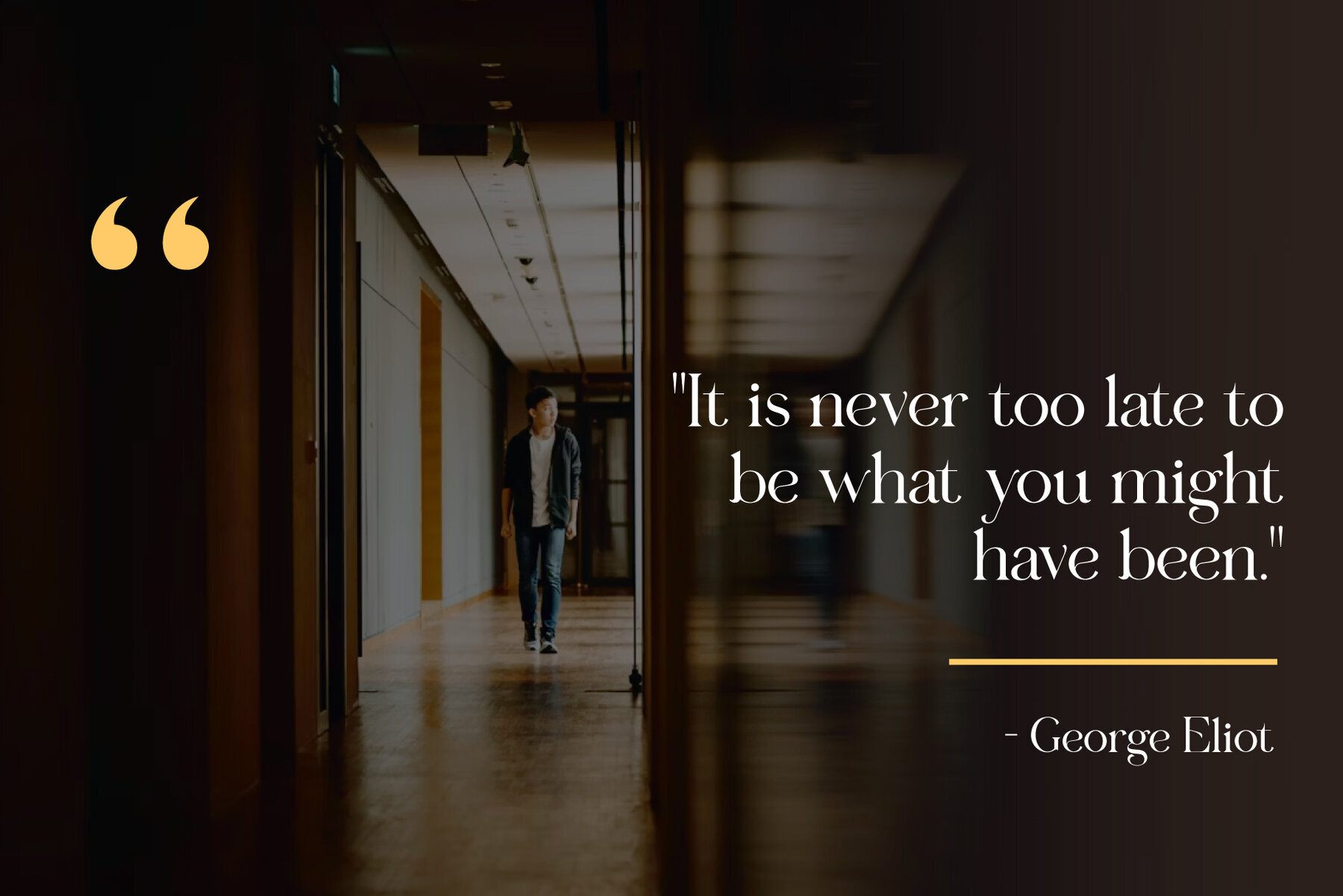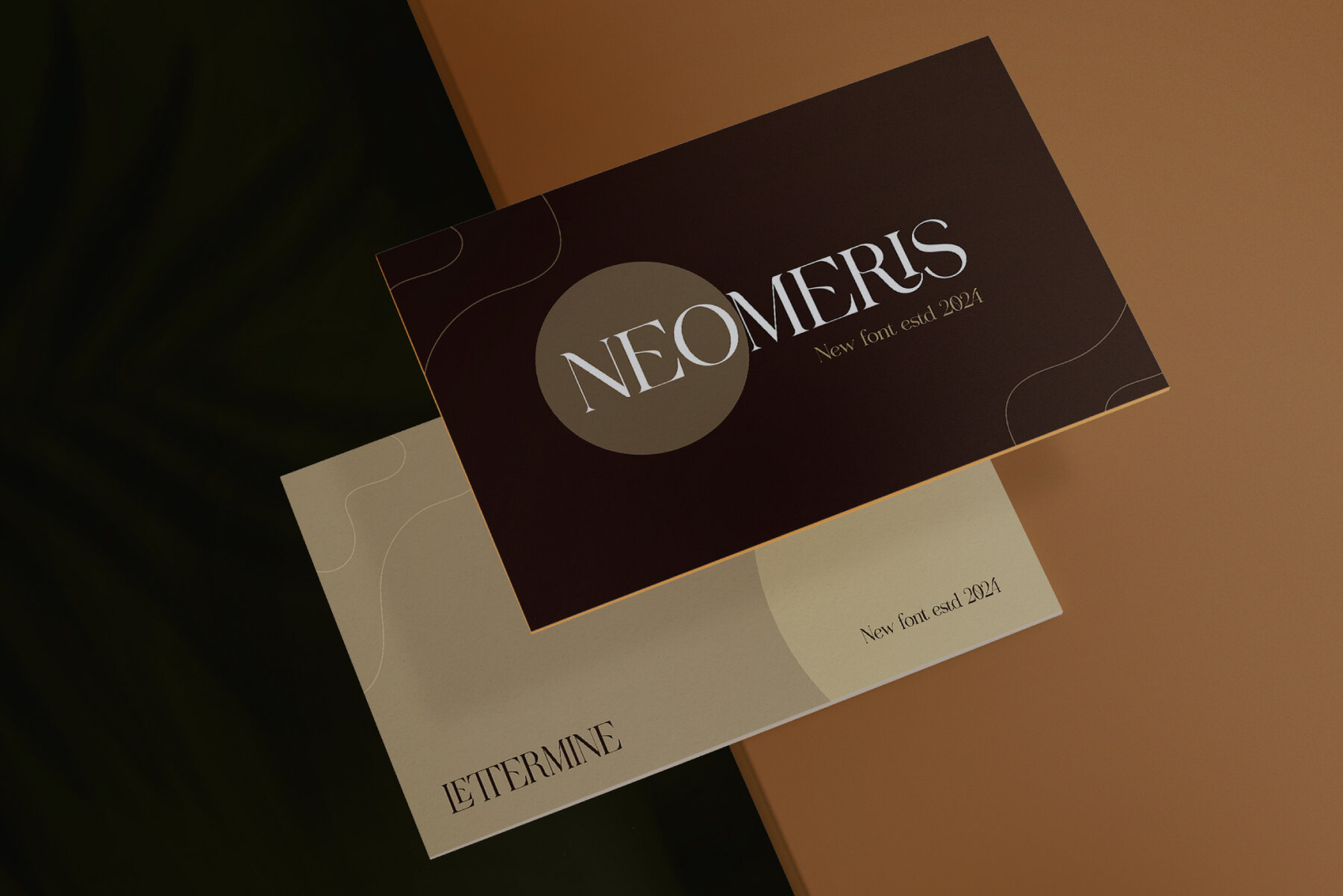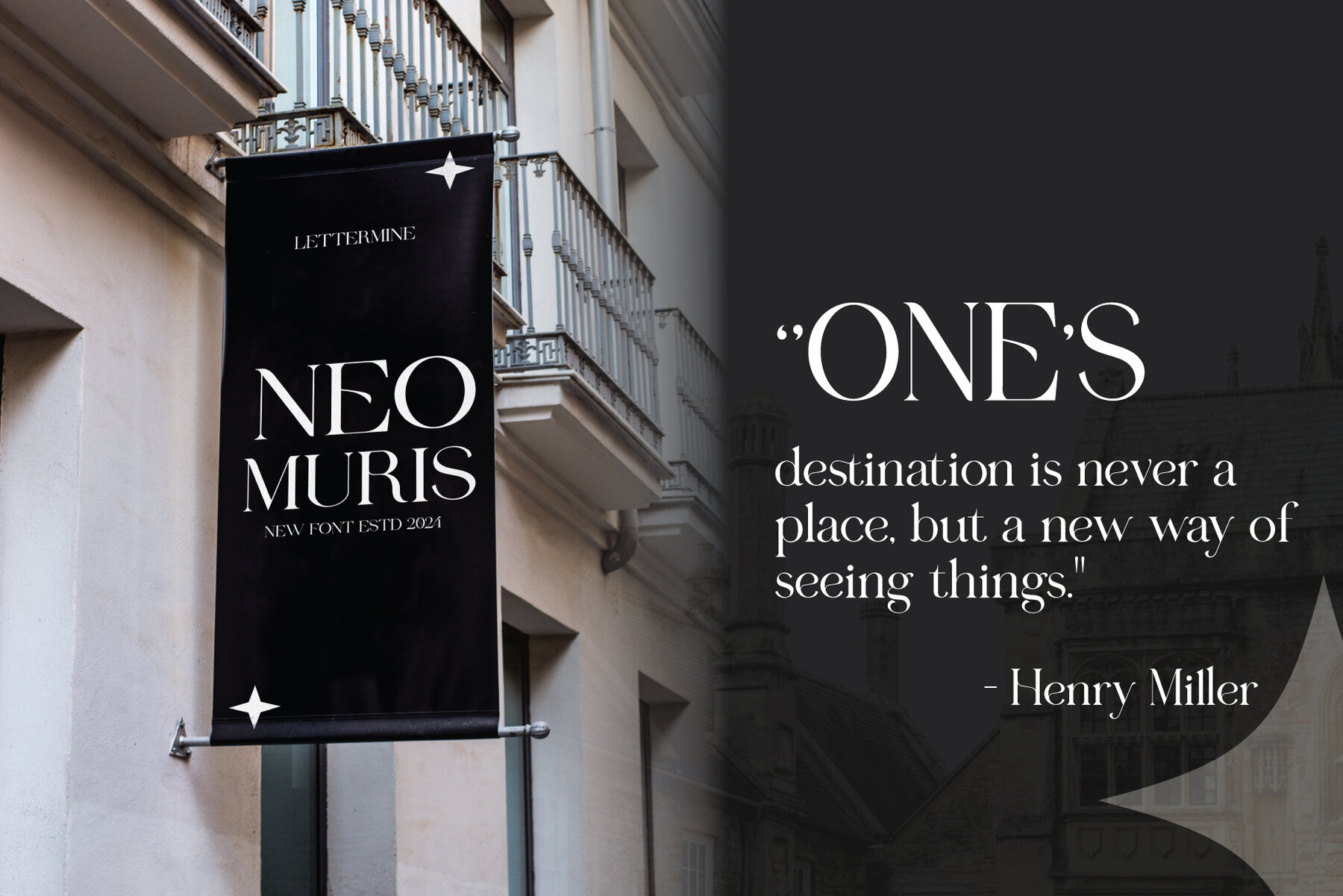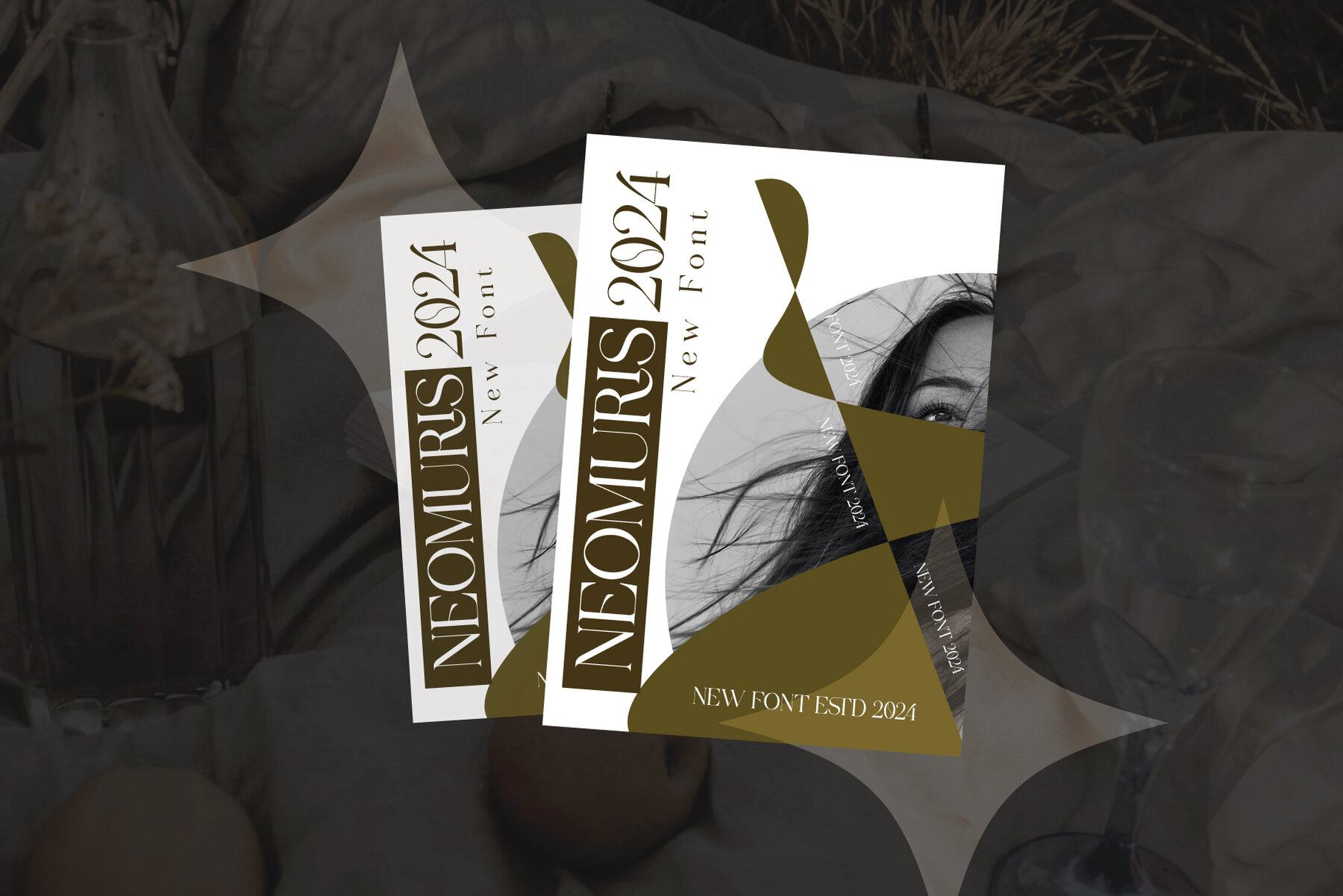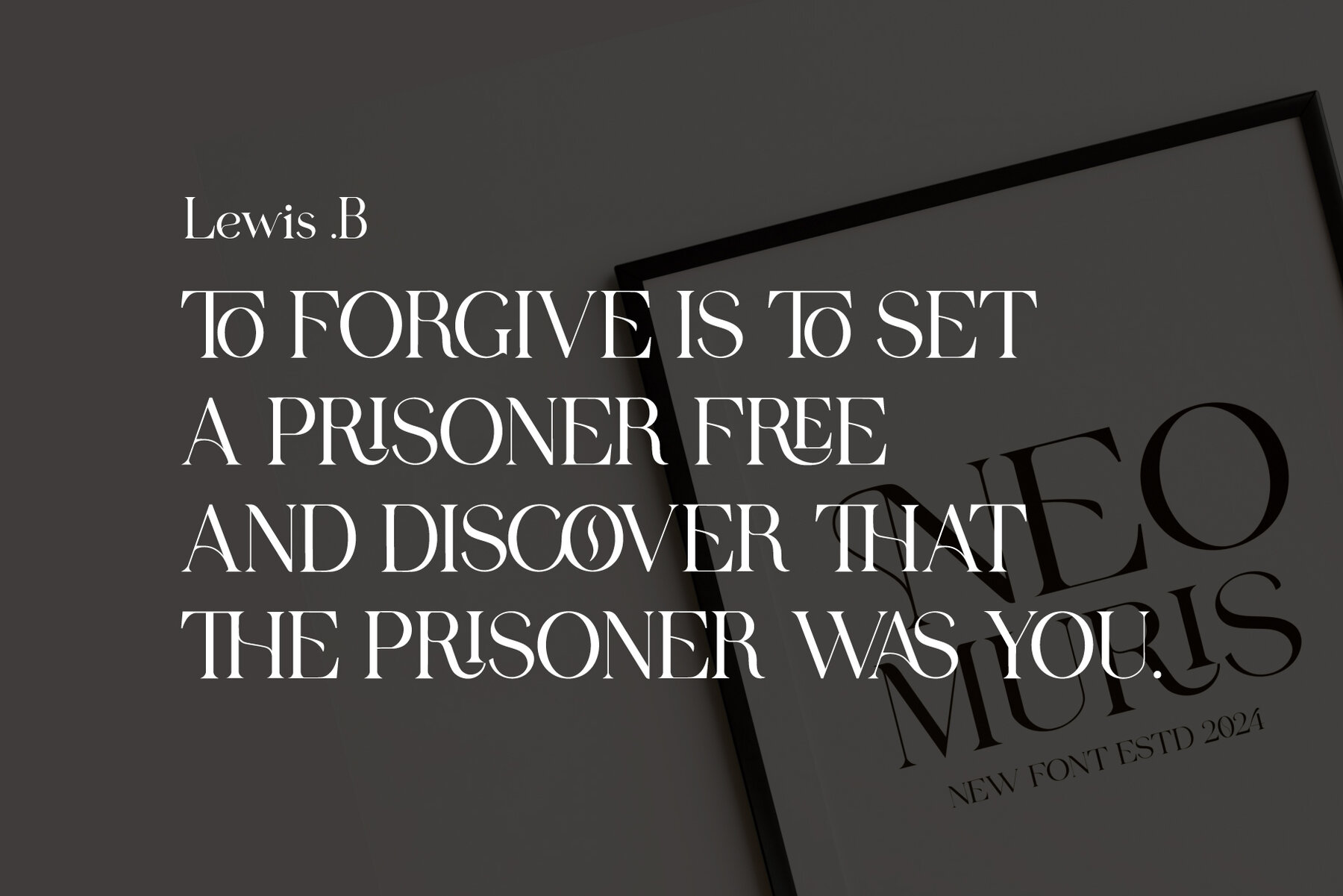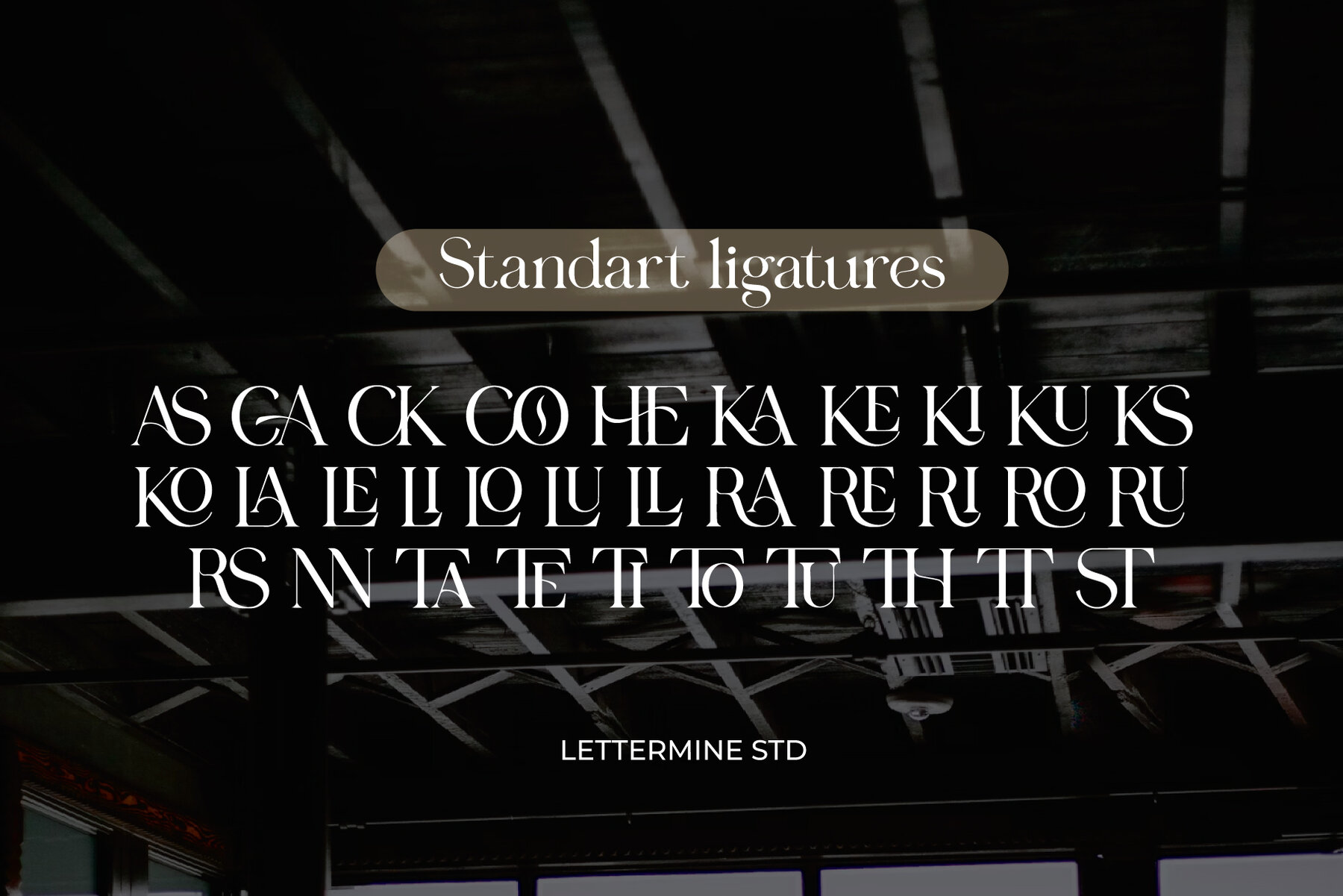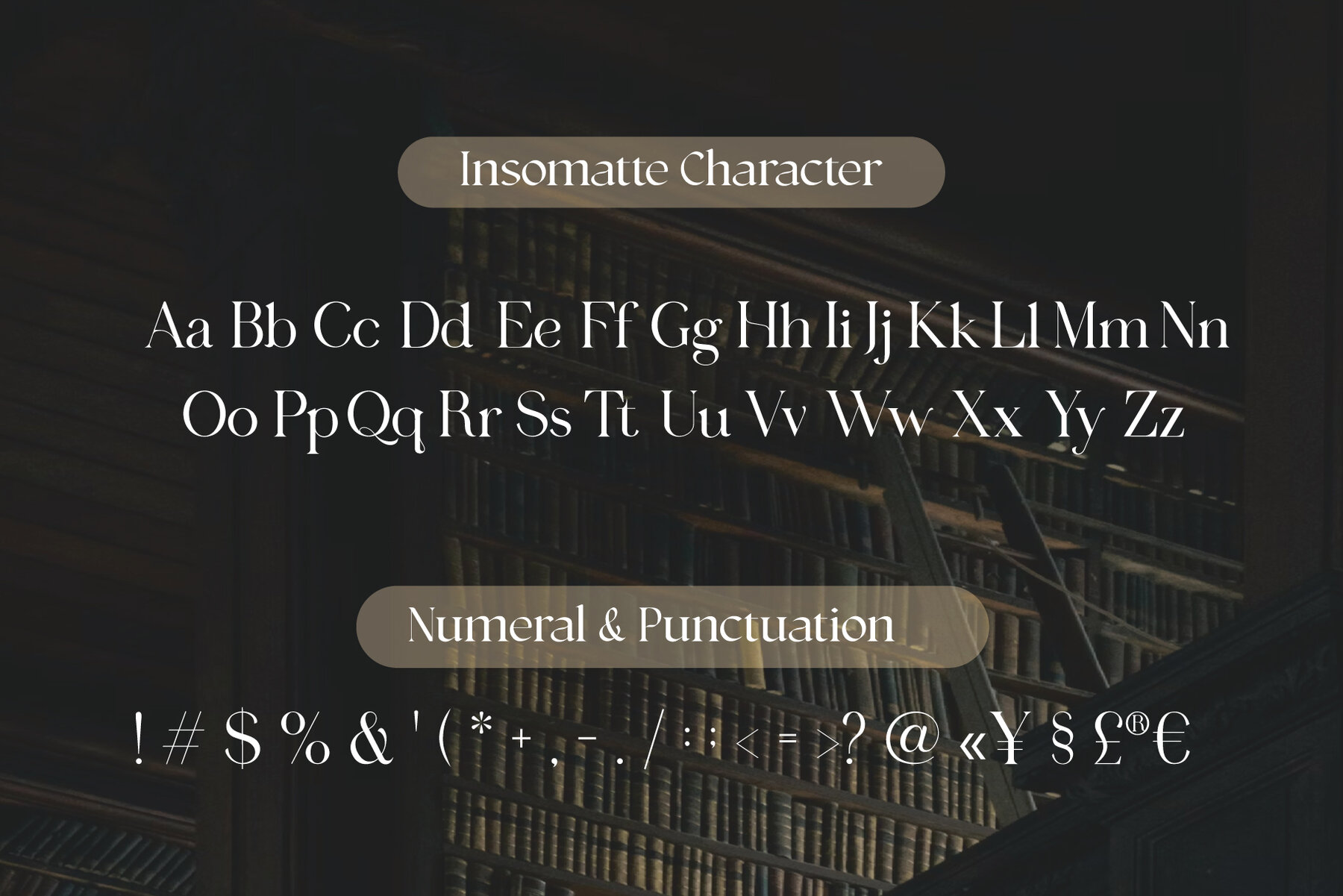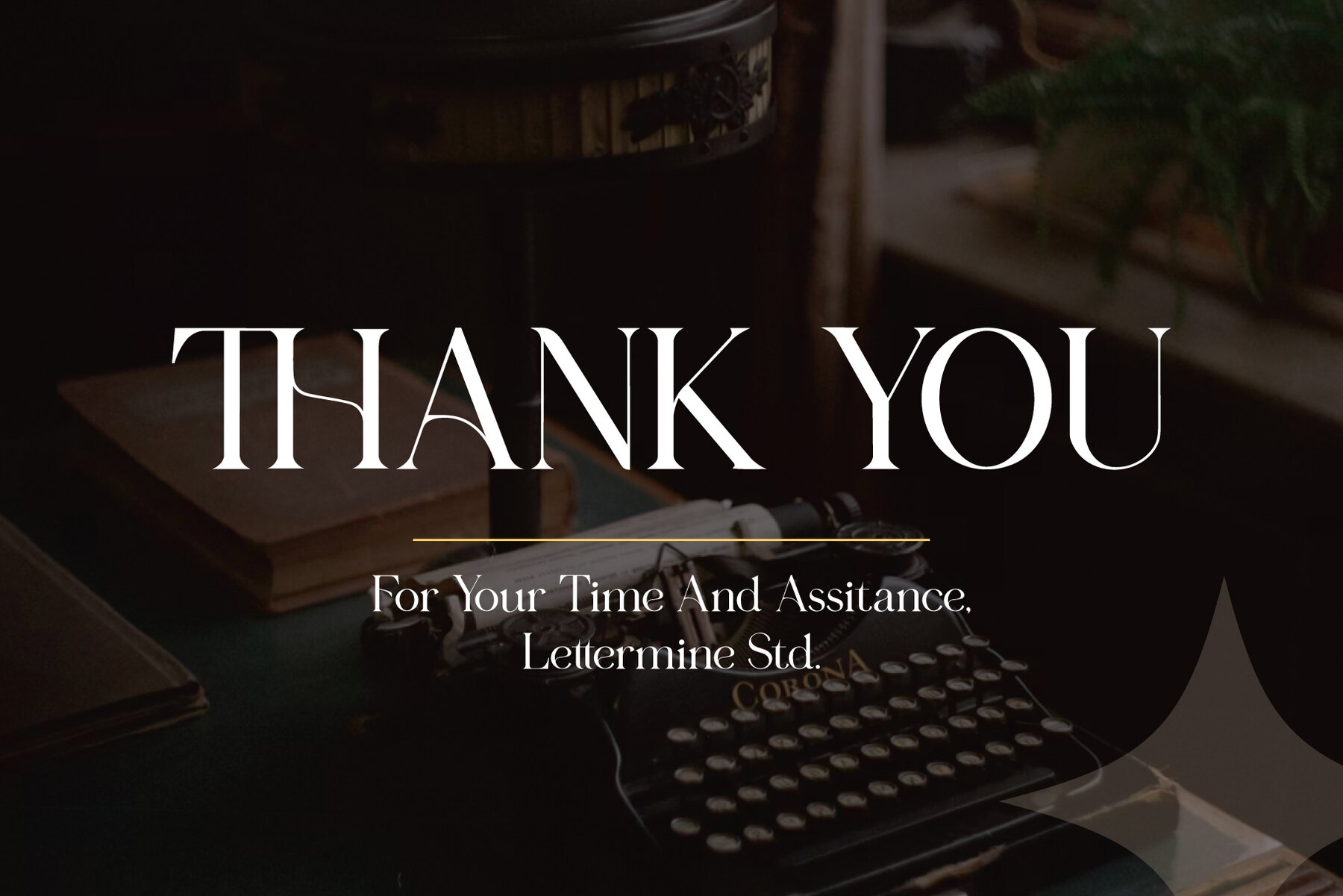
Neomuris Font
Introducing NEOMURIS, a refined and elegant Modern Serif font, ideal for a wide range of creative projects. Designed with sophistication in mind, NEOMURIS features ligatures that enhance the flow and harmony of your text and alternatives that add versatility to your typography. Boasting a full range of uppercase and lowercase characters, along with comprehensive punctuation, this font meets all your design needs.
NEOMURIS is perfect for branding, helping your logo and identity leave a lasting impression. It's also well-suited for editorial design, making magazines, books, and other print materials look polished and professional. With its modern and stylish appearance, NEOMURIS can elevate web design, ensuring your online presence is both attractive and functional. Additionally, it's an excellent choice for invitations and packaging, providing elegant typography for weddings, parties, special events, and product designs.